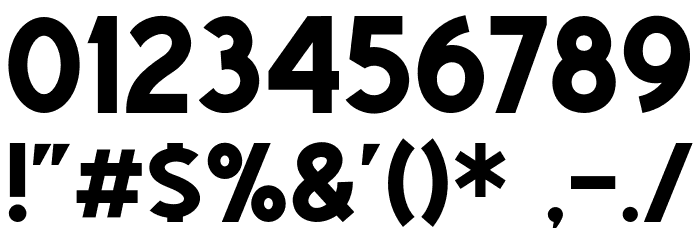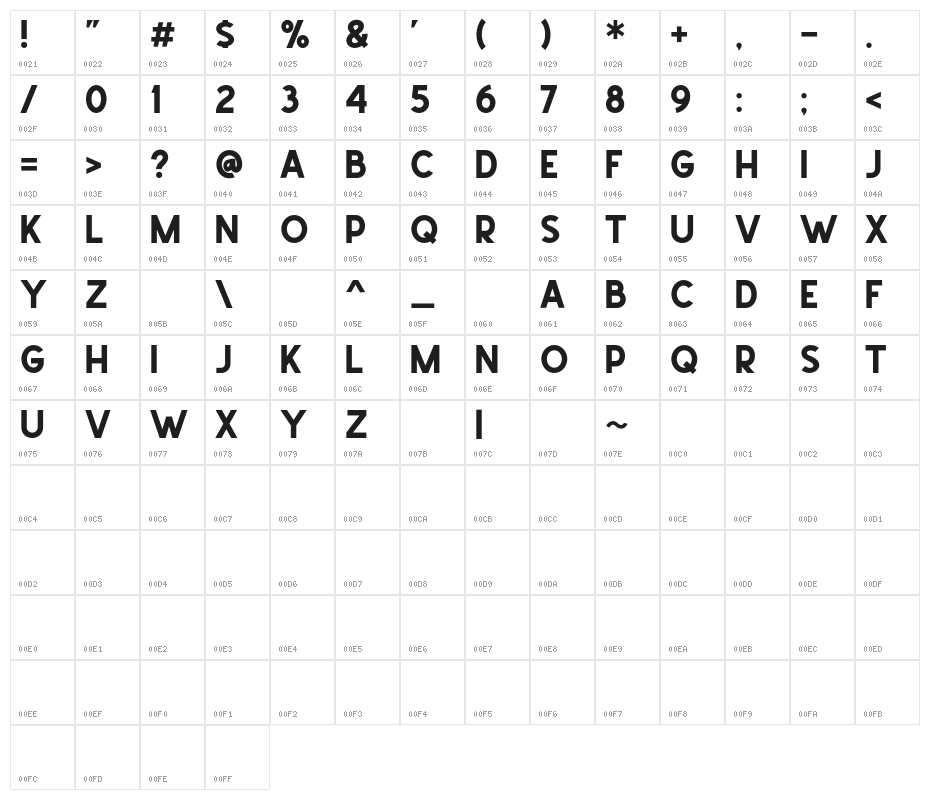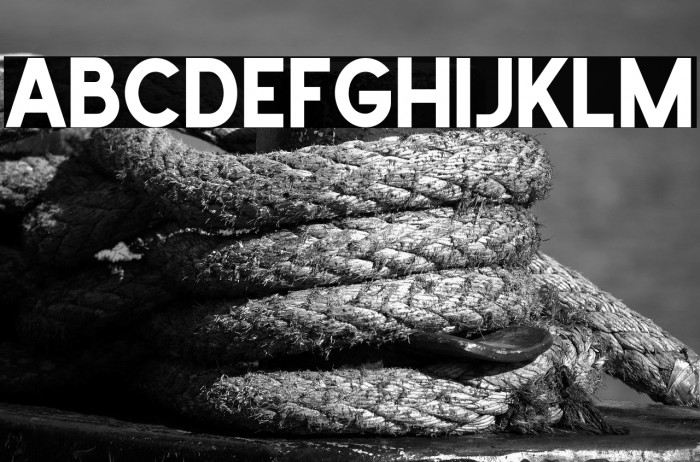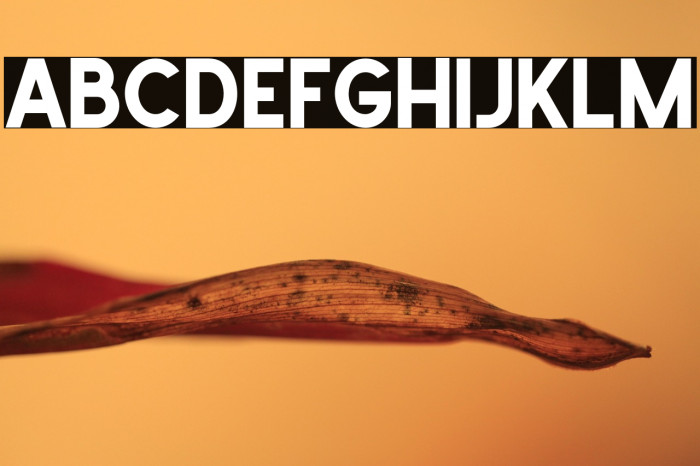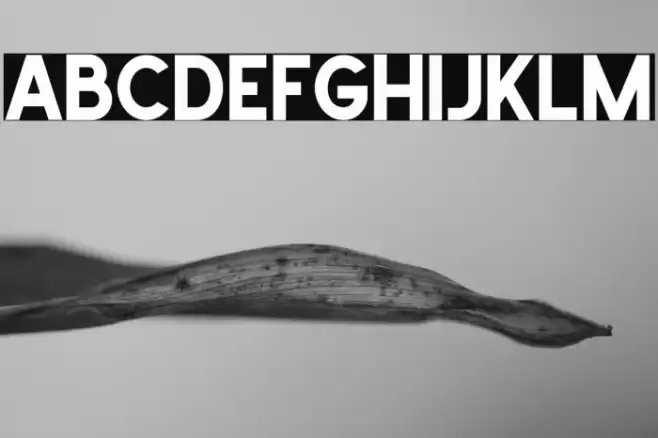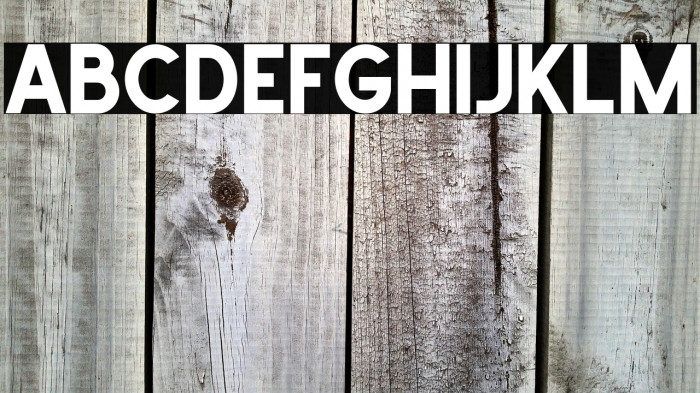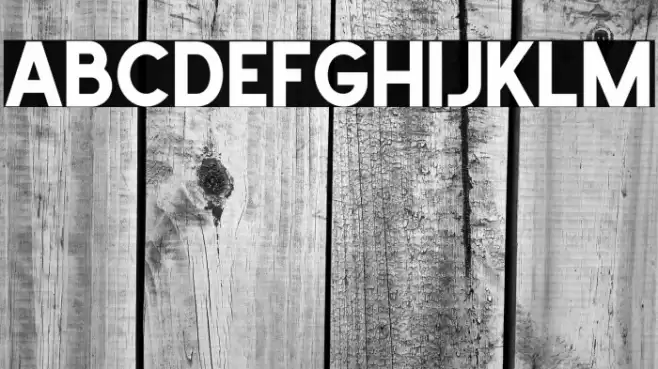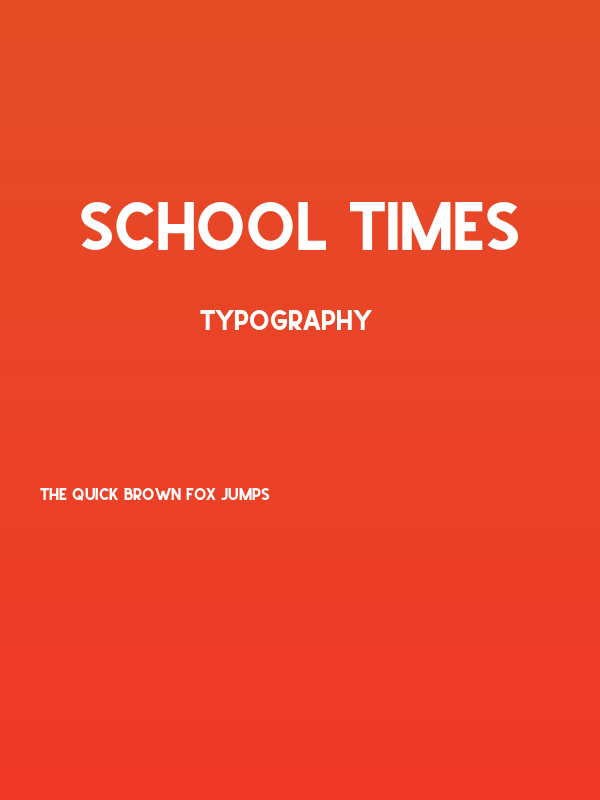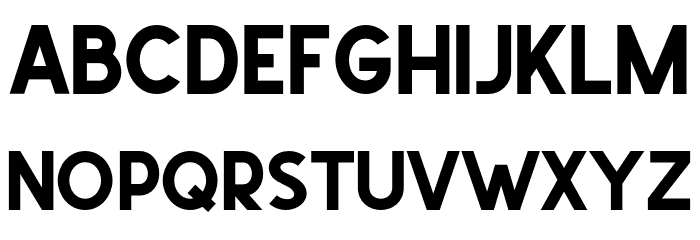
School Times Font
School Times Description
This font exhibits a bold and modern sans-serif style, characterized by its clean and geometric letterforms. The uppercase and lowercase letters maintain a consistent weight, providing a uniform appearance across the alphabet. The numerals are clear and easily distinguishable, making them suitable for various applications. Special characters are well-defined, enhancing the font's versatility. The overall design is straightforward yet impactful, making it ideal for projects that require a strong visual presence.
| Use Case | Headlines, Logos, Advertising |
| Proposed Projects | Ideal for branding, advertising, headlines, and digital media where a strong, modern look is desired. |